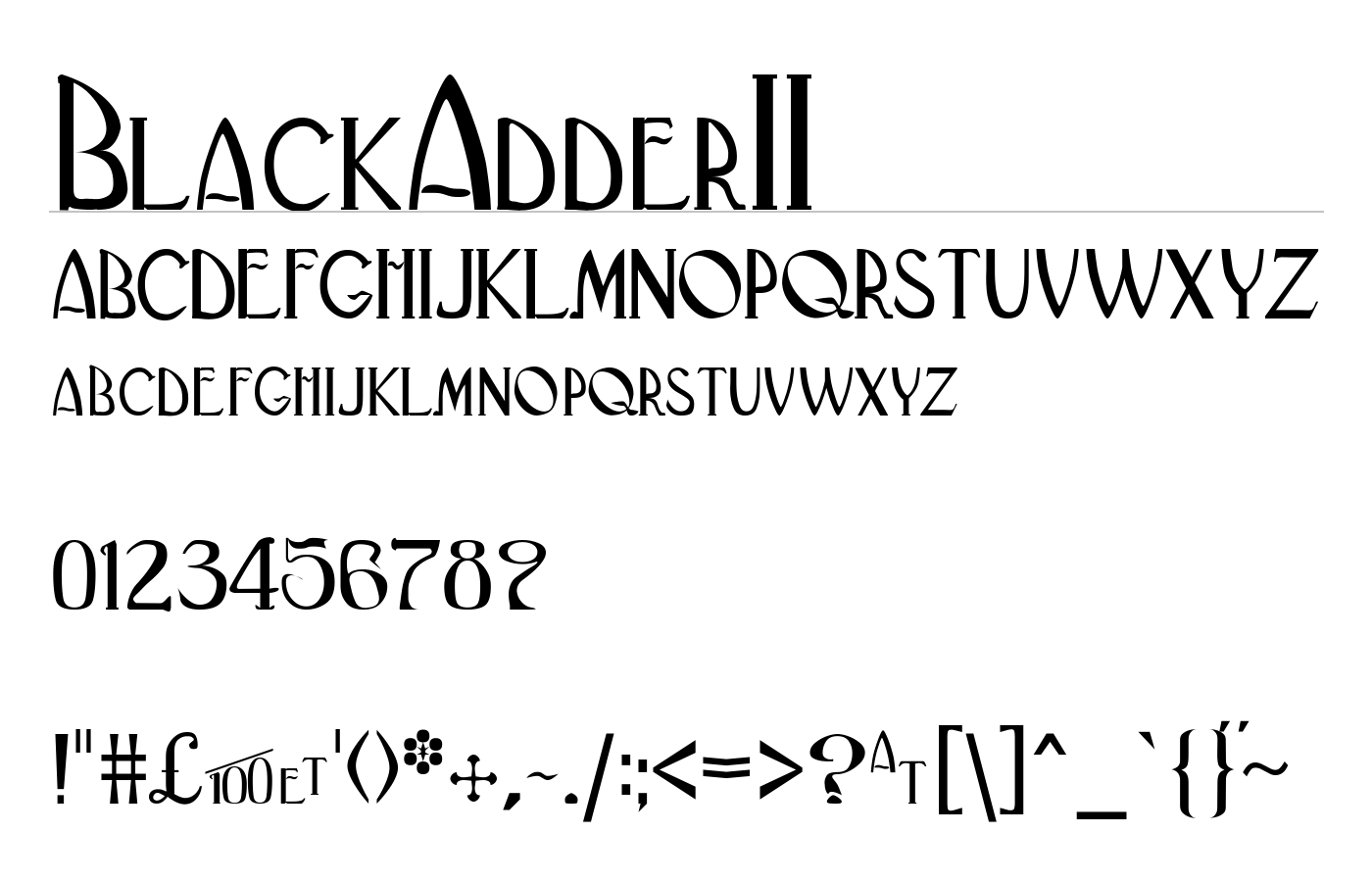
BlackAdderII is a highly stylized serif font with a distinctive, elegant flair reminiscent of Art Nouveau and calligraphic influences. Its tall, narrow letterforms feature dramatic contrast between thick and thin strokes, unique playful curves, and expressive terminals that create a vintage yet whimsical feel. This font works beautifully for decorative headings, invitations, and branding that seeks a sophisticated, artistic, or theatrical touch.
BlackAdderII Font
About BlackAdderII Font